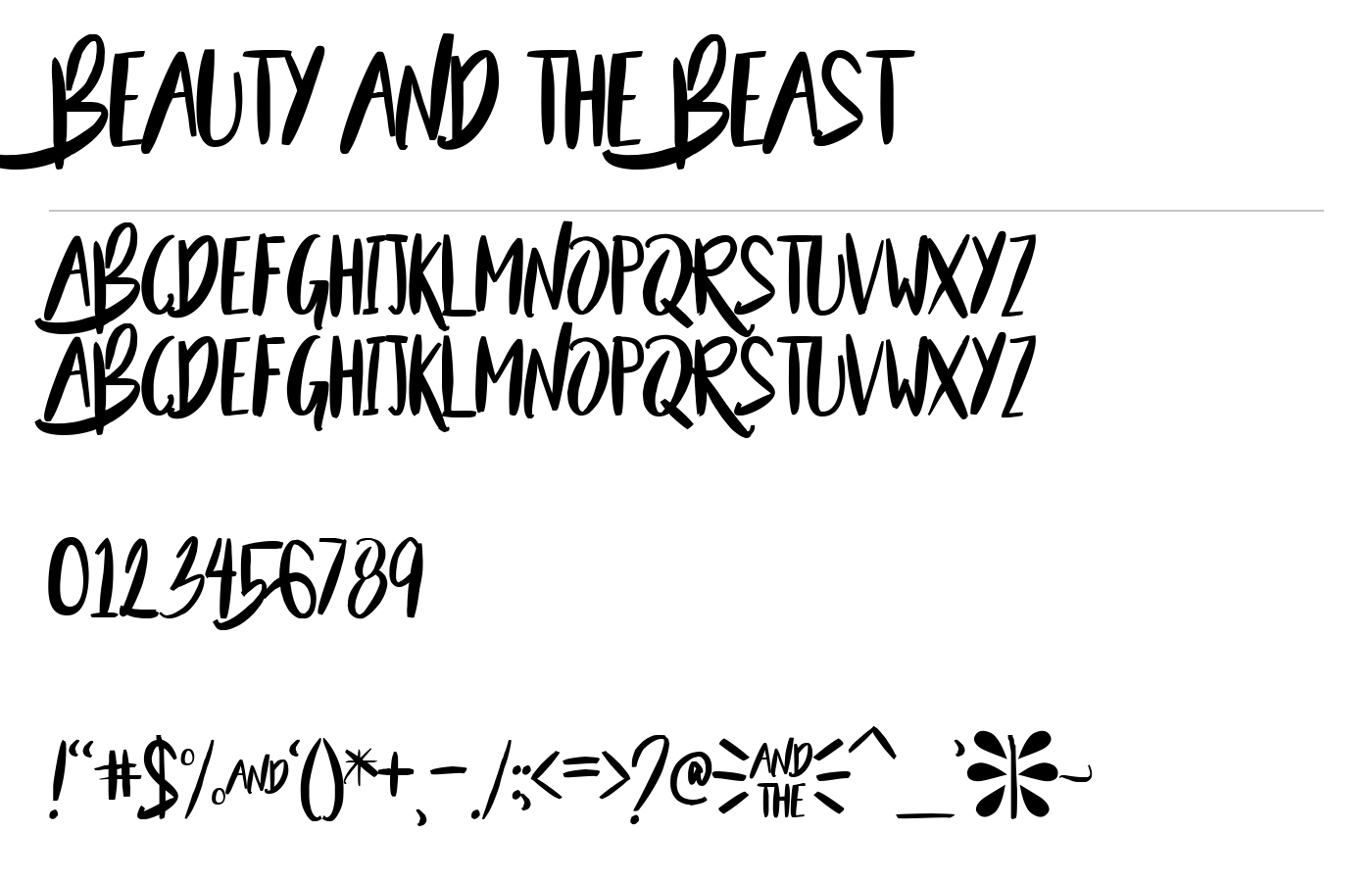
Beauty and the Beast Font is a playful and lively handwritten typeface with a casual, brush-like style that creates a whimsical and approachable look. Its tall, narrow letterforms with dynamic strokes and quirky details make it ideal for fun, youthful branding, poster designs, and creative projects that want to convey energy and personality. This font works well when you want to add a touch of charm and friendliness without losing a sense of style.
Beauty and the Beast Font
About Beauty and the Beast Font
| Font family | Beauty and the Beast Font |
| Designer | Francis John S. Villo |